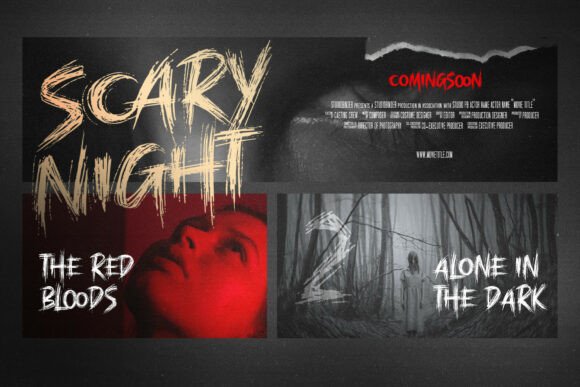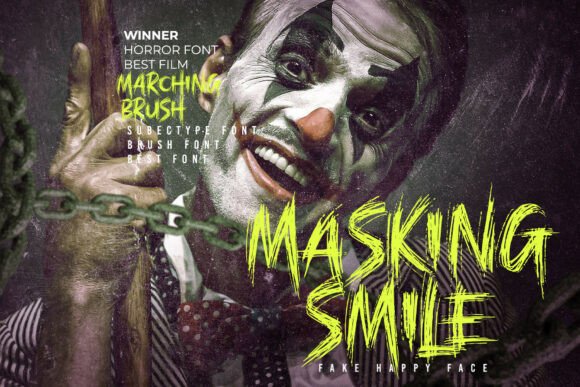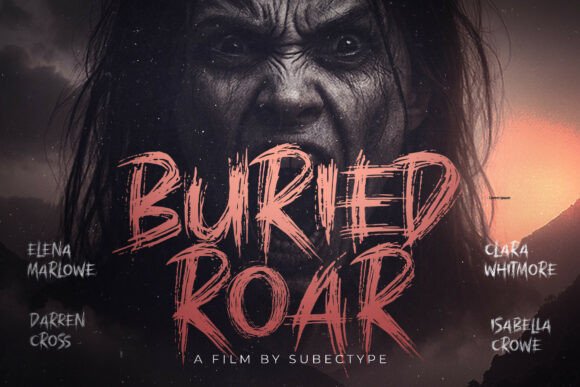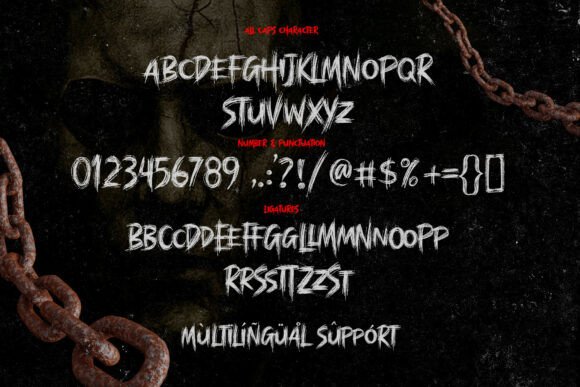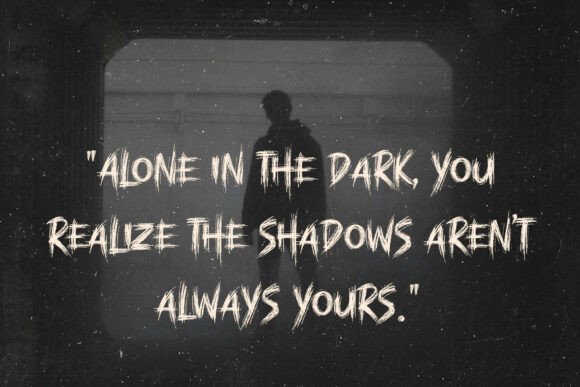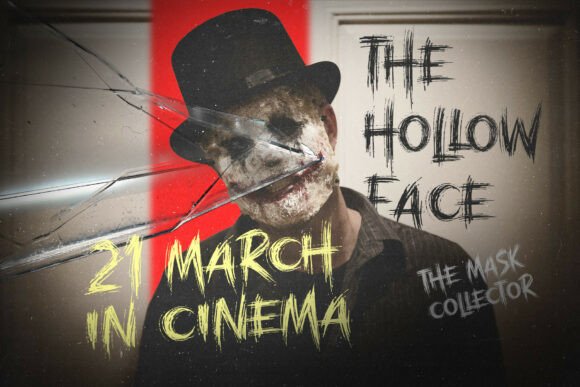
Introduction to Marching Brush Font
Say hello to “Marching Brush” typeface.
This brush font strikes with raw power, energetic, and dripping with horror vibes Its hand-painted strokes create an intense, chaotic feel, perfect for posters, album covers, or branding that demands attention.
Key Features of Marching Brush Font
Why Choose Marching Brush Font?
Marching Brush Font offers exceptional quality and versatility, making it a valuable addition to your design toolkit. Whether you’re creating for personal projects or commercial use, Marching Brush Font delivers professional results.